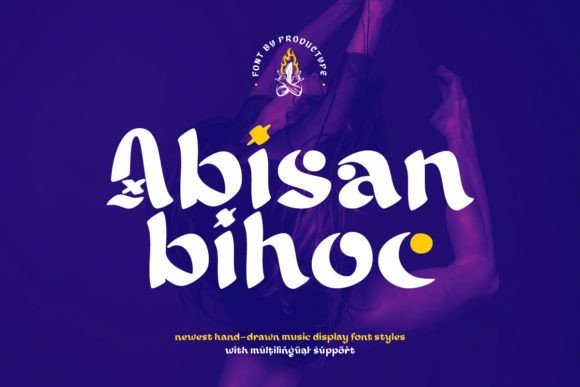
Unlocking the Rhythm of Design: A Deep Dive into Abisan Bihoc Font
Have you ever been in the middle of a design project, and suddenly, it hits you – the font you’re using just isn’t cutting it? The vibe is off, the style doesn’t match, and you’re left scrambling to find the perfect match. I recall a project where I was tasked with creating an album cover for an indie band. The music was eclectic, a fusion of electronic and organic elements, and I needed a font that could capture that essence. That’s when I stumbled upon Abisan Bihoc, a display font that would change the game for me and, potentially, for you too.
The Birth of Abisan Bihoc
Abisan Bihoc is more than just a font – it’s an experience. Designed to create immersive musical atmospheres, each character in this font is crafted to reflect the spirit of music. With its unique and beautiful design, Abisan Bihoc brings a musical feel to your projects, making it the ideal choice for designers, crafters, and creative hobbyists looking to convey deep musical nuances.
So, what makes Abisan Bihoc stand out? Let’s dive into the good stuff and a few quirks you should know about.
• ✨ Unique Musical Touch: Abisan Bihoc adds an unparalleled musical vibe to any project.
• ✅ Elegant Design: Each letter is beautifully crafted, ensuring your designs stand out.
• 🎵 Versatility: Perfect for album covers, concert posters, music promotional materials, and more.
• 🤔 Complexity: The intricate design might make it less suitable for very small font sizes or projects requiring simple, straightforward text.
• ⚠️ OpenType Features: Some platforms might not fully support OpenType features, limiting the font’s capabilities.
The Inspiration Behind Abisan Bihoc
The creator of Abisan Bihoc was inspired by the dynamic and expressive nature of music. With a background in graphic design and a passion for music, the designer aimed to craft a font that not only reflects the beauty of music but also brings an energetic and inspired look to any project. While the real story behind Abisan Bihoc might be fictional, its impact on designers is very real.
Q: Is Abisan Bihoc suitable for body text?
A: Due to its intricate design, Abisan Bihoc is best used for headings and titles. For body text, a simpler font might be more readable.
Q: Does Abisan Bihoc support OpenType features?
A: Yes, Abisan Bihoc supports OpenType features, allowing for advanced typographic capabilities in compatible software.
Abisan Bihoc is more than just a font; it’s a tool to transform your designs into visual symphonies. Whether you’re a professional designer or a creative hobbyist, this font offers a unique musical touch that can elevate your projects. So, don’t miss out on the opportunity to let each character become a stunning visual symphony in your next design endeavor.